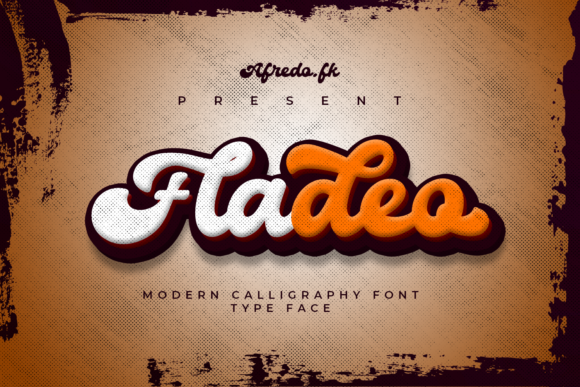
Discover the Timeless Charm of Fladeo Font
Remember that moment when you stumbled upon an old, dusty book or a vintage poster, and the nostalgia just washed over you? The way the worn-out letters seemed to leap off the page, telling a story of its own? That’s the kind of magic the Fladeo Font brings to your designs.
With its bold, handwritten style, the Fladeo Font is crafted to transport you back in time, adding a touch of retro charm to your headlines and logotype projects. Its confident and dynamic feel makes it the perfect choice for designers looking to add a unique twist to their work.
What sets Fladeo apart is its PUA encoding, making it incredibly easy to access all the glyphs and swashes, giving you complete creative freedom. Whether you’re a seasoned designer or just starting out, the Fladeo Font is a valuable addition to your toolkit, waiting to unleash its full potential in your next project.
- Unique Characteristics: Fladeo Font features a unique blend of modern and vintage elements, with intricate details and subtle texture, making it perfect for designs that require a touch of sophistication and elegance.
Fladeo Font Review
Overall, I have mixed feelings about the Fladeo font. There are some great things about it, but it also has some limitations that prevent it from being a top choice for me.
- Unique design: Fladeo has a distinct and quirky feel to it that can add some personality to your designs.
- High-quality rendering: The font renders well in both digital and print formats, making it suitable for a wide range of applications.
- Legibility: Despite its unique design, Fladeo is still quite legible, making it easy to read even in smaller sizes.
- Limited font sizes: Fladeo doesn’t work well in very small or very large font sizes, which can limit its use in certain contexts.
- Lack of character sets: The font only includes a limited character set, which can make it difficult to use for languages that require a wide range of characters.
- Not suitable for body text: While Fladeo can be great for headings and titles, it’s not the best choice for body text due to its unique design and limited legibility at smaller sizes.
While Fladeo is a great choice for certain design applications, its limitations prevent it from being a go-to font for me. However, if you’re looking for a unique and quirky font for a specific project, it might be worth considering.
Tips for Getting the Most Out of Fladeo Font
Fladeo Font is a versatile font that can be used in a variety of design contexts. Here are some tips for getting the most out of it:
- Use it for titles and headings to add a touch of elegance.
- Pair it with other fonts to create a unique and eye-catching design.